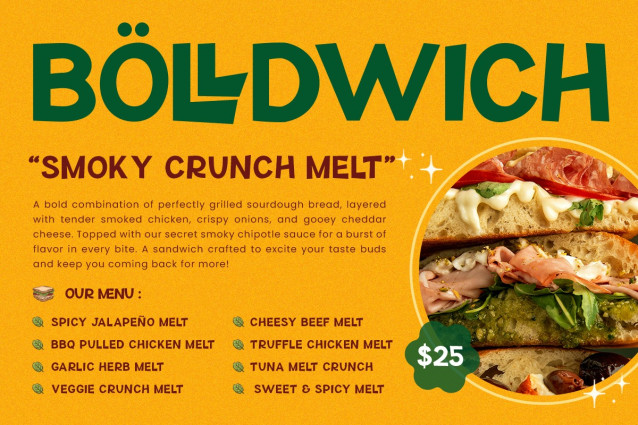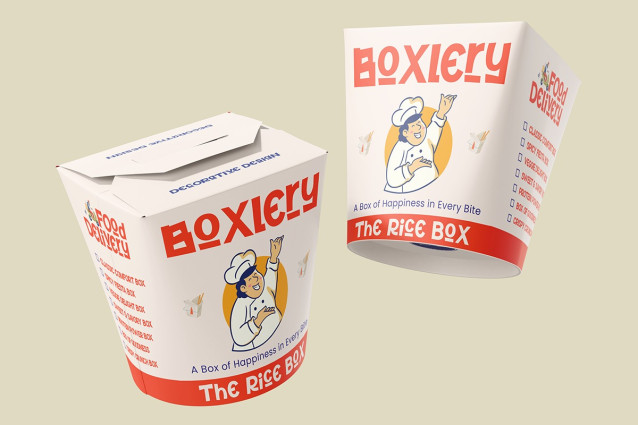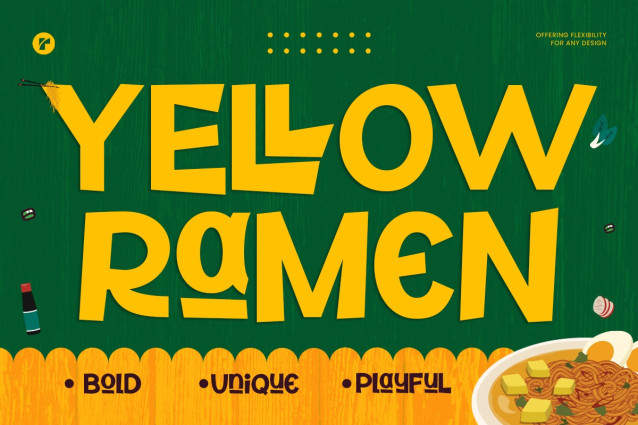
Yellow Ramen Font
Yellow Ramen Font, a modern decorative font that combines playfulness with bold creativity. Perfectly hand-drawn with a quirky and unique style, this font captures a fun, vibrant aesthetic that’s ideal for adding personality to your designs. Whether you’re creating for branding, logos, websites, or food packaging, Yellow Ramen brings a fresh and youthful vibe to every project.
Designed to stand out, Yellow Ramen is not just a playful font—it’s a versatile tool for designers who want to make a statement. Use it as a quote font to inspire or as a branding font to add a bold and unique character to your visuals. Its cursive, fancy, and cute elements make it equally at home in hand-lettered artwork or elegant designs.
Whether you’re crafting for hipster vibes, designing modern logos, or working on a food project, Yelow Ramen adapts beautifully. Its charm also works seamlessly for love-inspired creations, website headings, or playful lettering designs. This brush font is all about flexibility, letting you explore endless possibilities with its creative versatility.